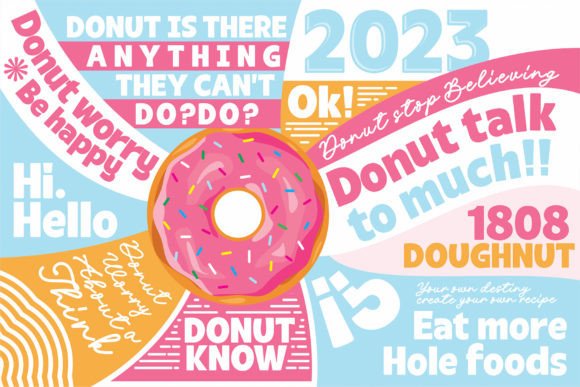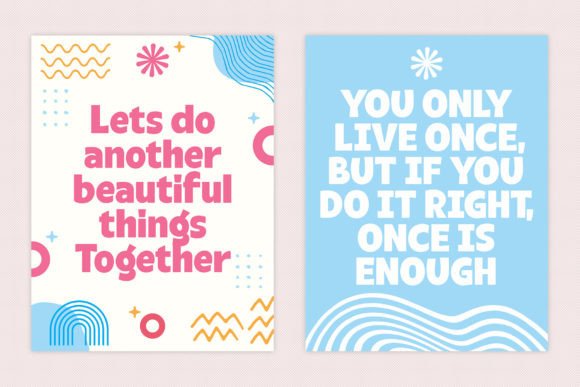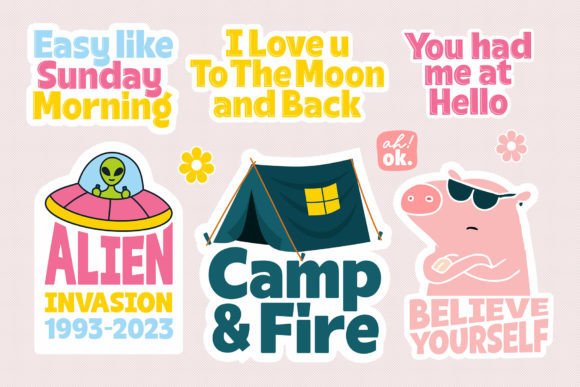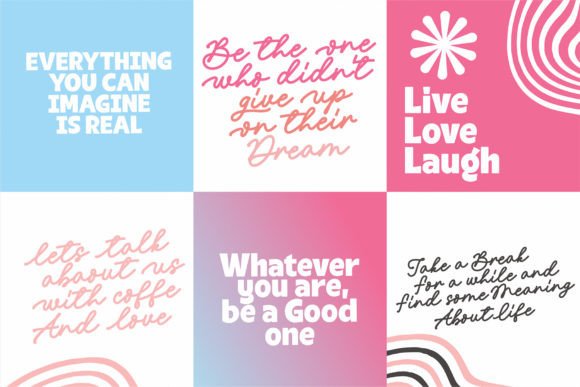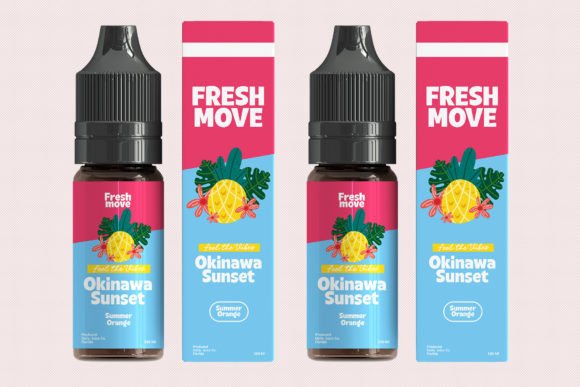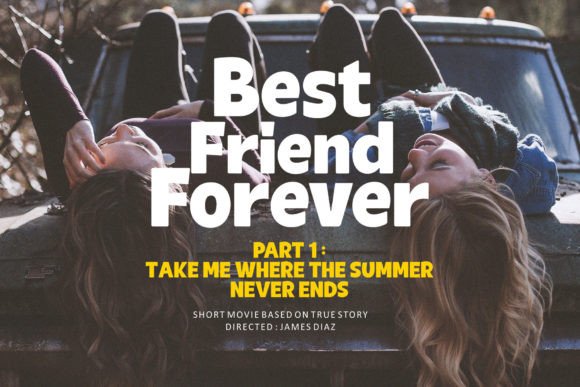
Introduction to Oxlaide Font
Introducing Oxlaide: The Bold and Playful Display Font that’s designed to capture attention and add a touch of whimsy to your projects.
With its rounded corners and playful style, Oxlaide font is the perfect choice for a wide range of creative endeavors Its robust, thick lines ensure that your message stands out, whether you’re designing posters, banners, logos, or any other project that needs to grab attention.
Oxlaide Font offers exceptional quality and versatility, making it a valuable addition to your design toolkit. Whether you’re creating for personal projects or commercial use, Oxlaide Font delivers professional results.